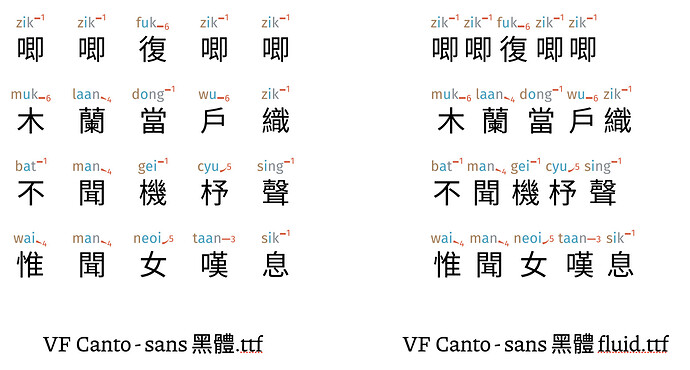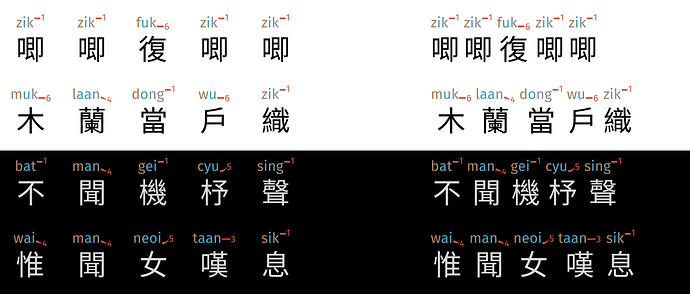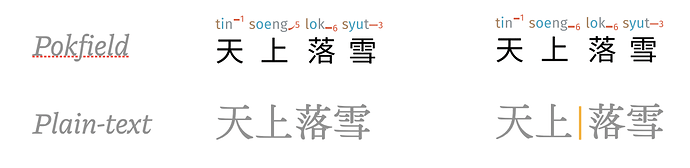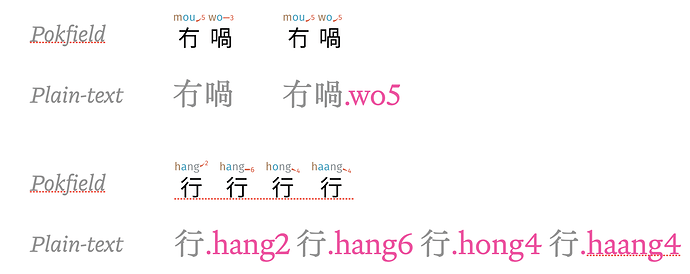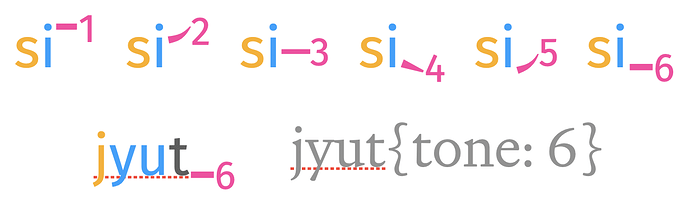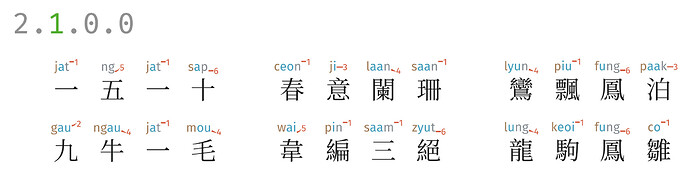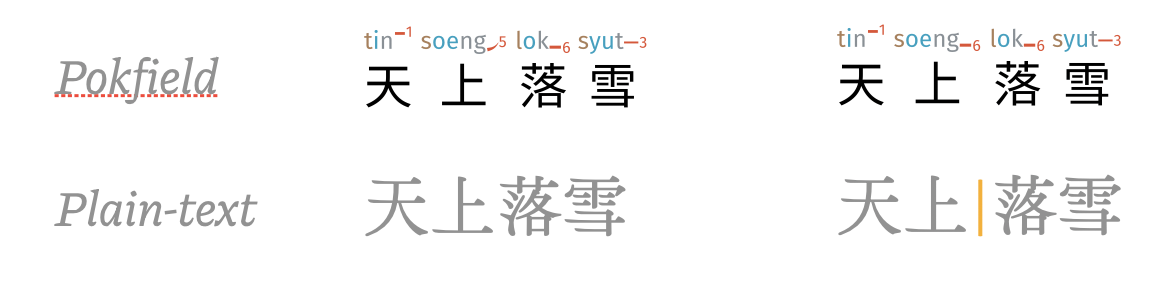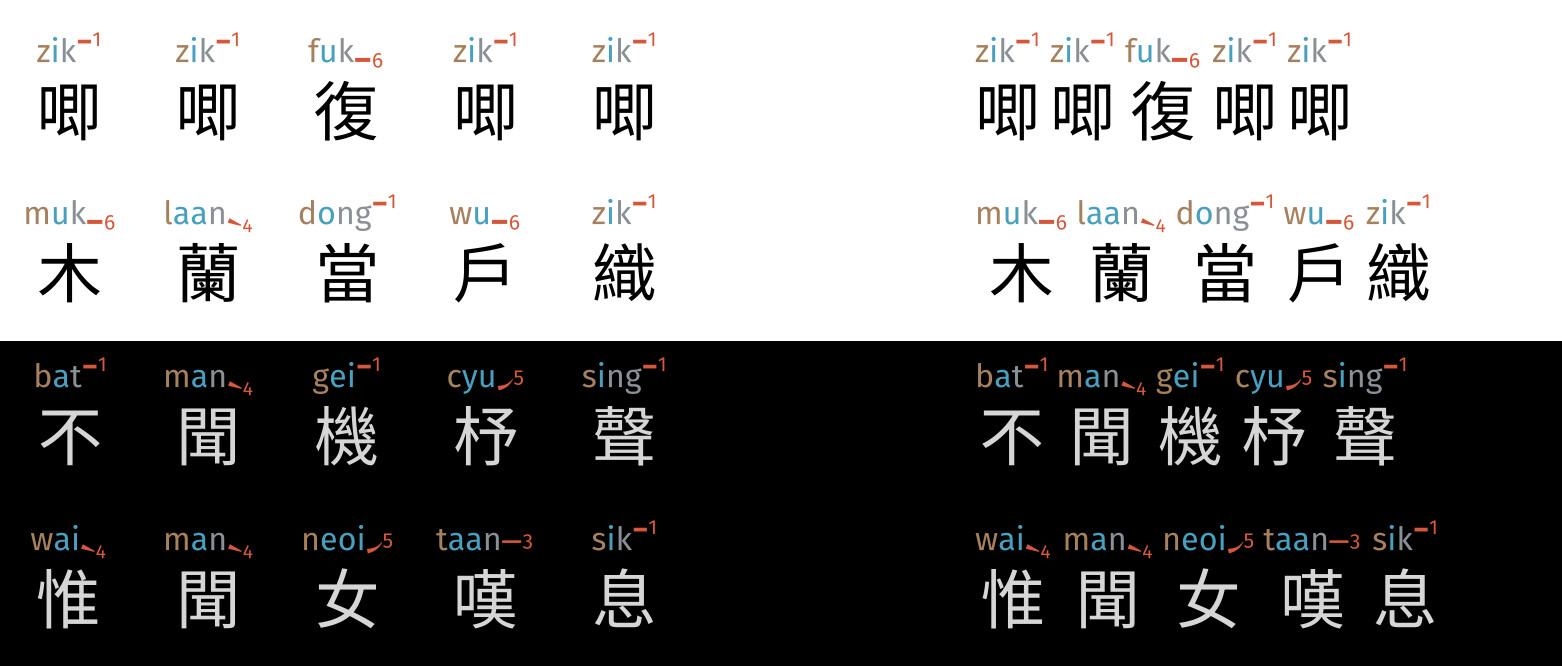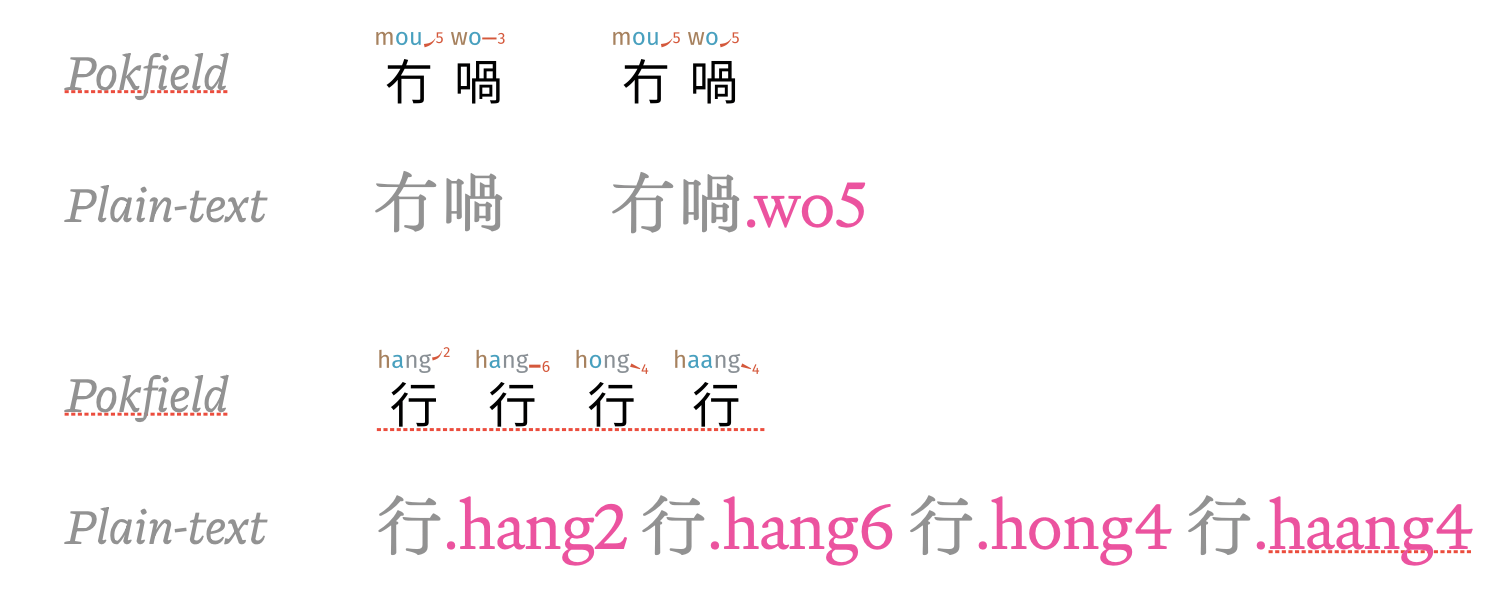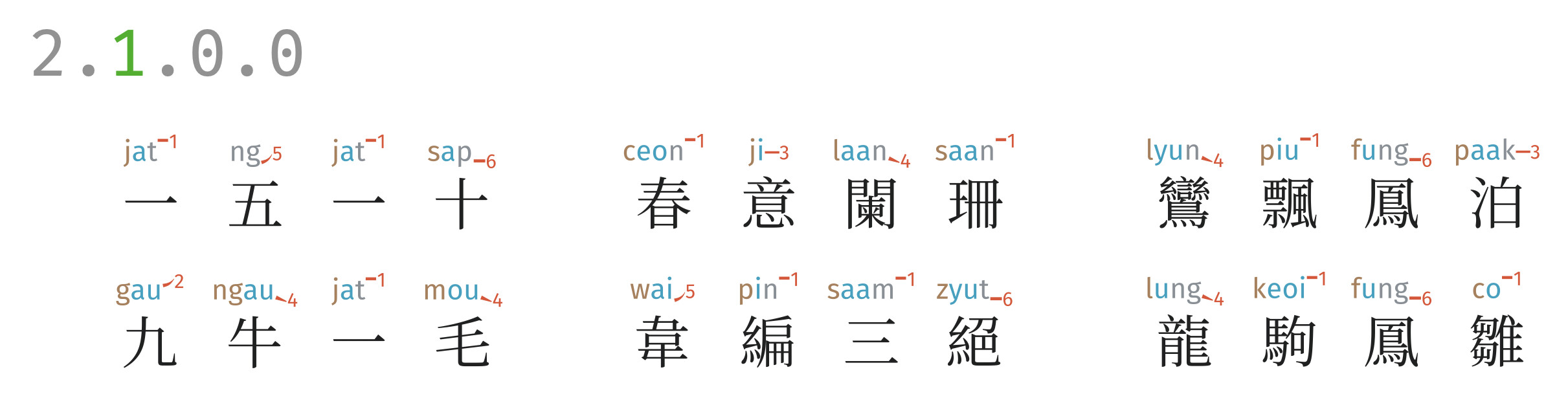
This post is a high-level overview of features built into Canto Font v2 (code-named Pokfield). For specific tutorials or applications, see the Docs section of the forums.
Font families
(C) includes the following choices of font installations.
- VF Cantonese.ttf (210 Mb) Characters in this file are 黑體 and fixed width. This is generally recommended, and referred to as the Standard Pokfield, and excels at poems and lyrics where equal spacing between characters is a must. In the rare cases when words with long jyutping next to one another (e.g., 硬
ngaang6or bi-syllabic characters), they will no longer remain fully fixed width, but characters gain a little breathing room to avoid clashes. - VF Canto - sans 黑體 fluid.ttf (210 Mb) Characters in this file are only as wide as their jyutping requires.
- VF Canto - sans 傳承宋體.ttf (210 Mb) A modification of Standard Pokfield, this fixed width font contains characters as heritage-style glyphs from I.Ming.
The following fonts are equivalent to the above, but without color information. This is useful for use on systems that do not support color fonts (e.g., Kindle and other monochrome eBook readers, some applications, Windows, and pre-2023 Linux distributions.)
Extended Edition
The Extended Edition includes the following additional fonts:
- VF Canto - sans 黑體 - large jyutping.ttf The Jyutping in these are extra large, and is good for early learners. This lets them focus on the pronunciation while retaining some osmosis exposure to characters. This is only available in fluid-width since the fixed width introduces so much white-space as to be unreadable.
- VF Canto - sans 黑體 - small jyutping.ttf The Jyutping in these are smaller (equivalent to v1 jyutping sizes for our existing users), with the longest jyutping fitting over one characters.
- VF Canto - sans 黑體 - no jyutping.ttf This version has no jyutping but has otherwise the same metrics as the Standard Pokfield. This is very helpful for preparing material that places Jyutping selectively only over some characters.
- VF Canto - sans 黑體 - bold.ttf This is Standard Pokfield, with bolded Chinese characters.
When installed, these additional fonts can be found as variants (like Bold or Italics for normal fonts) under the same name of VF Cantonese in the font choice lists. The No-Jyutping variant is mapped as an “Italic” for applications, and Bolded variant is mapped as “Bold”, so in most applications they can be accessed with keyboard shortcuts ctrl/cmd-I and ctrl/cmd-B.
Glyphs content
Alphanumeric characters
All Pokfield fonts contains the full set of Latin, Greek, and Cyrillic alphanumeric glyphs (~1,000), and all CJK (Chinese-Japanese-Korean) punctuation in mid and ground levels. They do not contain vertical layout punctuation.
CJK characters
All Pokfield fonts contains > 28,000 characters, for a total of > 39,000 readings. This represents 100% of Cantonese-readable characters and 100% of their possible readings.
In the colored fonts, the Jyutping colors are fixed, while the color of the Chinese character can be changed in the external application. The Jyutping colors were carefully chosen to be readable on both light and dark screen background, as well as in colored and monochrome print. Note that color printing uses subtractive CMYK pigments, and the result will be somewhat less vibrant than when viewed on emissive RGB screen.
Smart Pronunciation
A core technical achievement in Pokfield is its ability to assess the environment that a character is surrounded by, and change the pronunciation to fit the occasion. The accuracy of Pokfield is unparalleled, and surpasses all but human experts. With standard modern prose (e.g., news articles), Pokfield benchmarks at 99.85% correct assignment, a 25-fold improvement over the previous state-of-the-art.
All Pokfield fonts are capable of recognizing > 60,000 contexts (in other words, all known contexts) and respond to them accordingly.
Accepts User Guidance
In the case that the font-suggested readings are not correct in that situation, the user can over-ride the suggestions manually. This is done with the following two mechanisms:
Word segmenting
In some cases, the incorrect suggestion comes from the font perceiving a different context than the user intended. For example, in the phrase 天上落雪, the font sees 上落 as one unit, and provides soeng5 as the pronunciation. The user can guide it by marking out the boundaries of words using the | pipe/bar symbol (often found above the Enter key). This | symbol is a private language for the user to interact with Pokfield invisible in the font and does not introduce any additional spacing issues.
Requesting one specific pronunciation
Cantonese pronunciations often cannot be inferred from the written script: 冇喎 can mean “but there is none” (when wo3 is uttered) or “I am skeptical that there is none” (when wo5 is uttered). There is nothing for Pokfield to use to infer a reading.
Canto Font is just a font, but it is as close to principled and perfect as we can get.